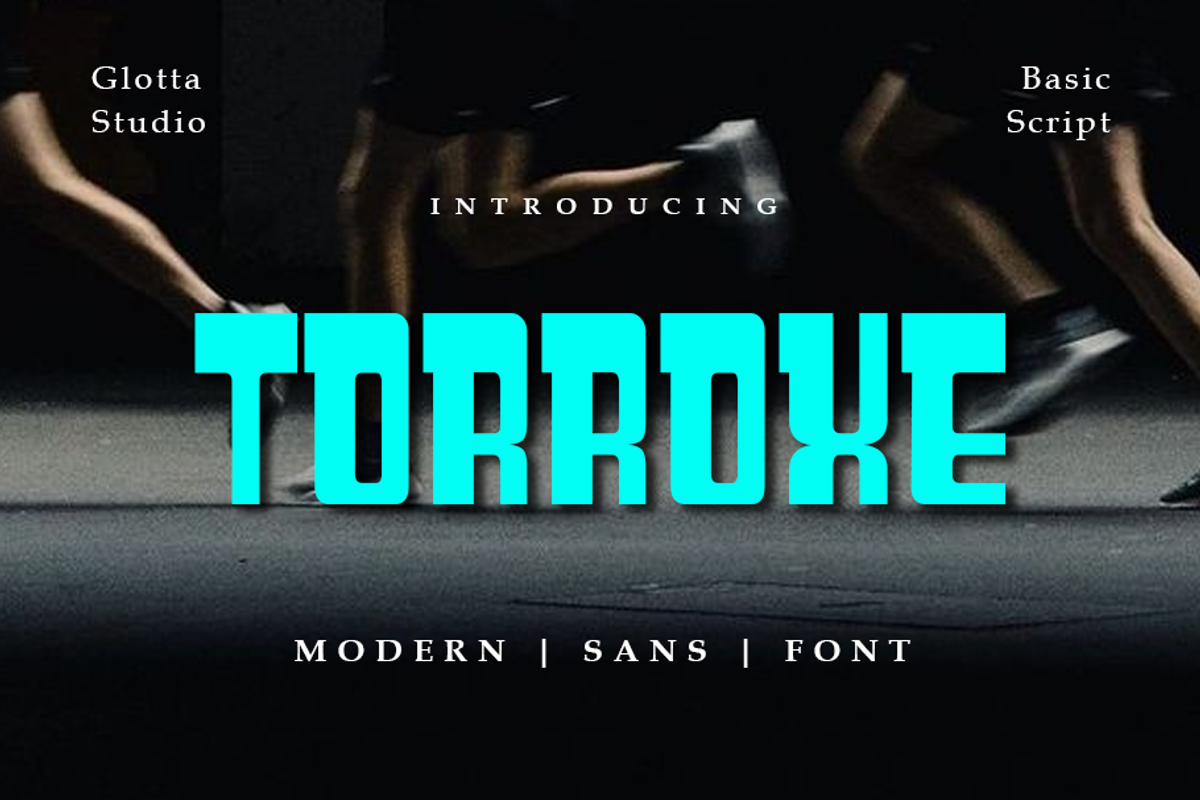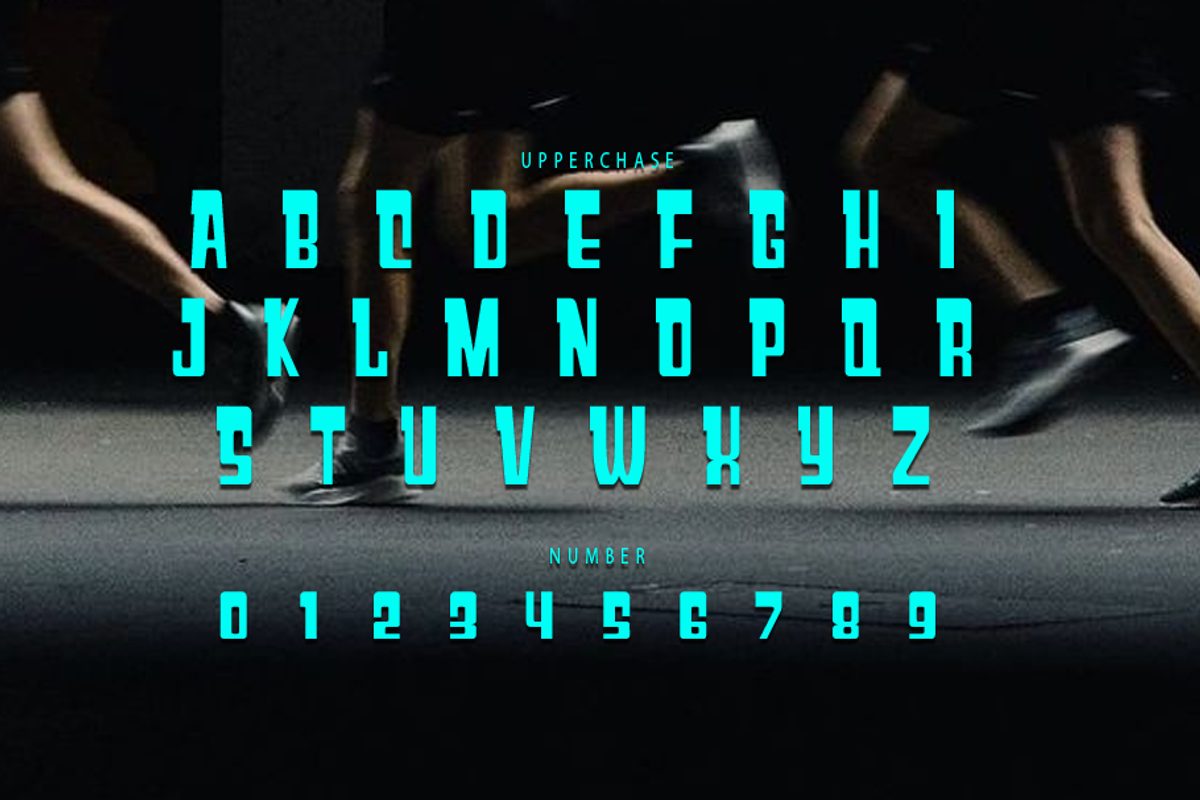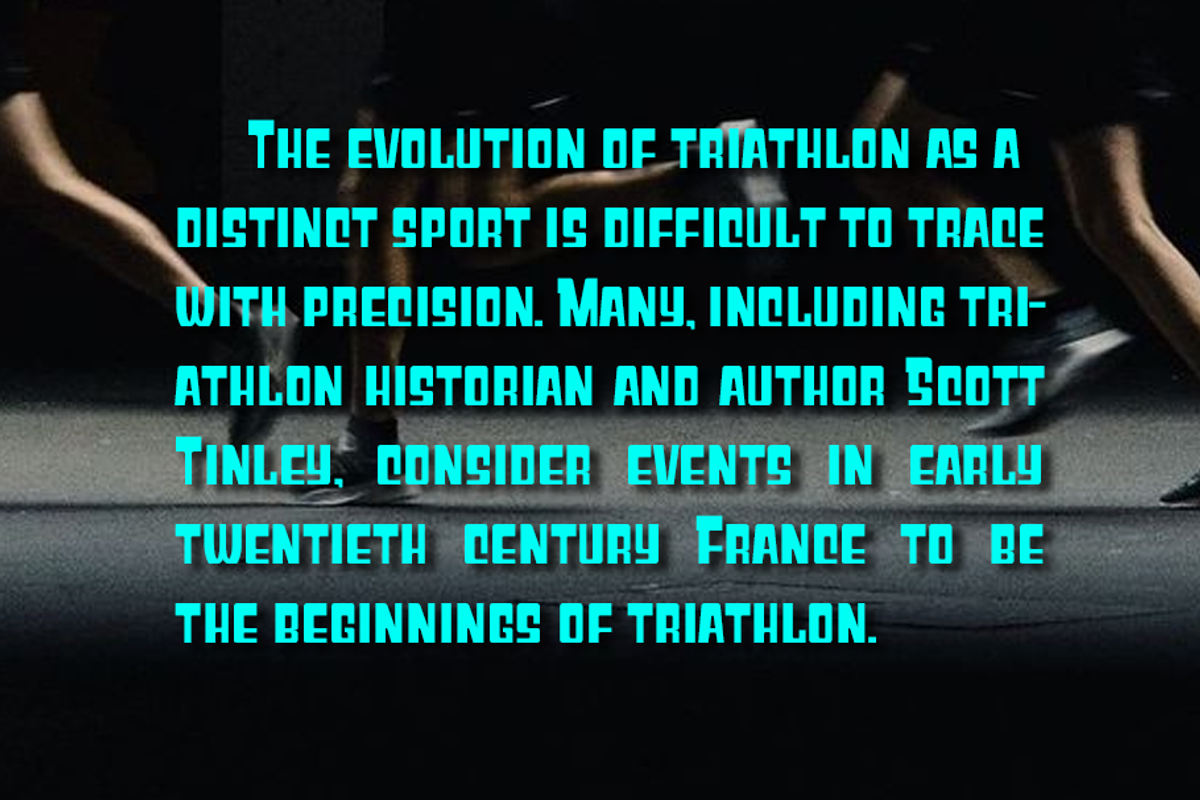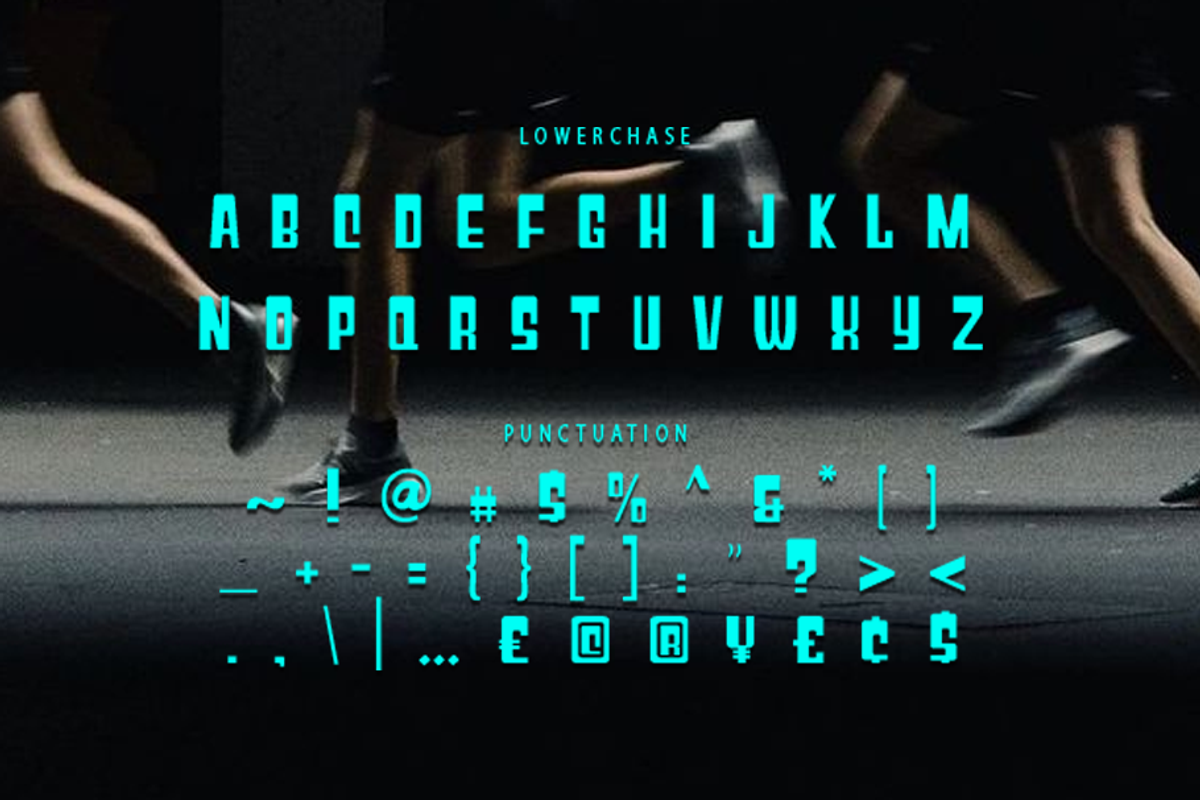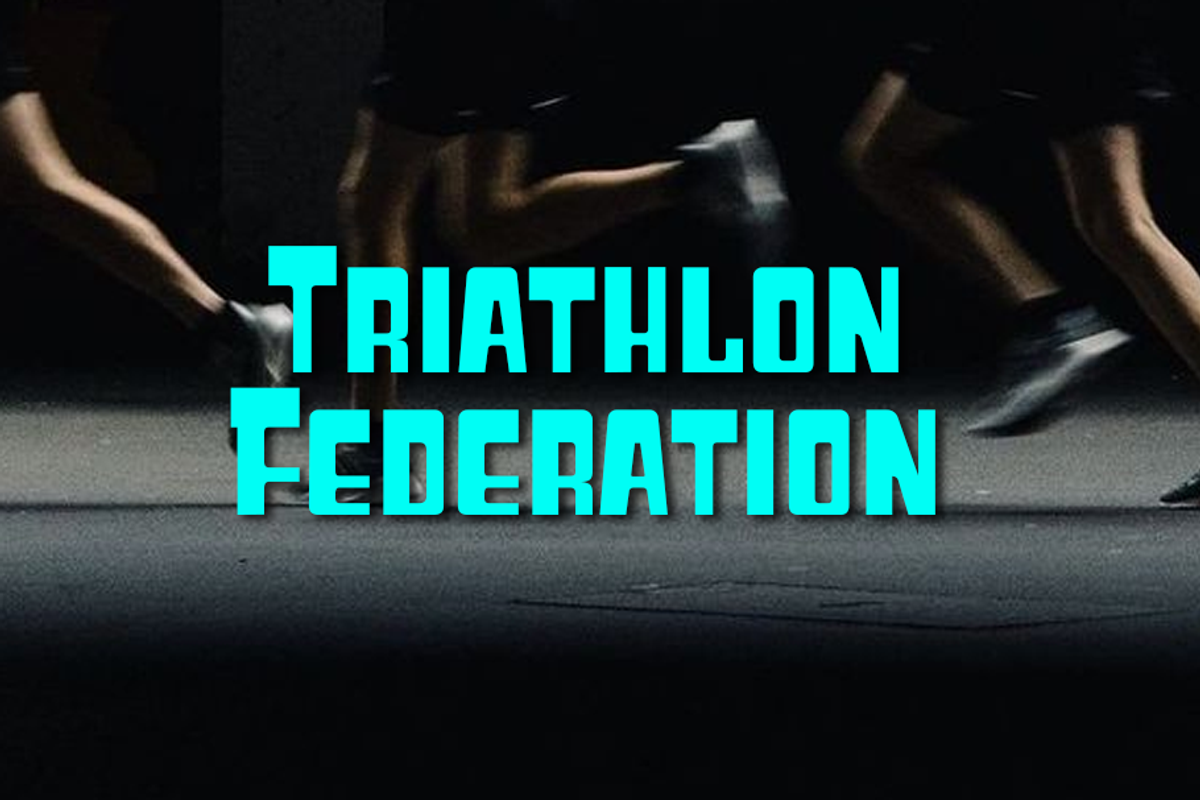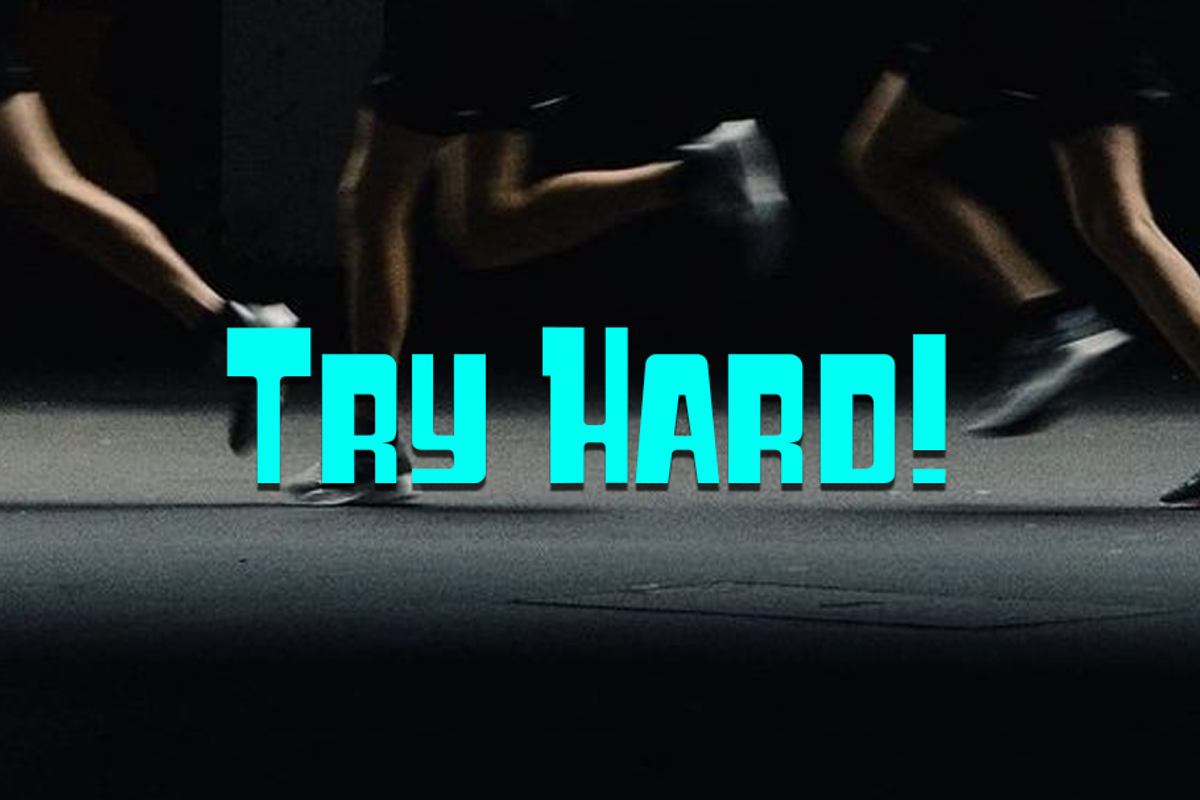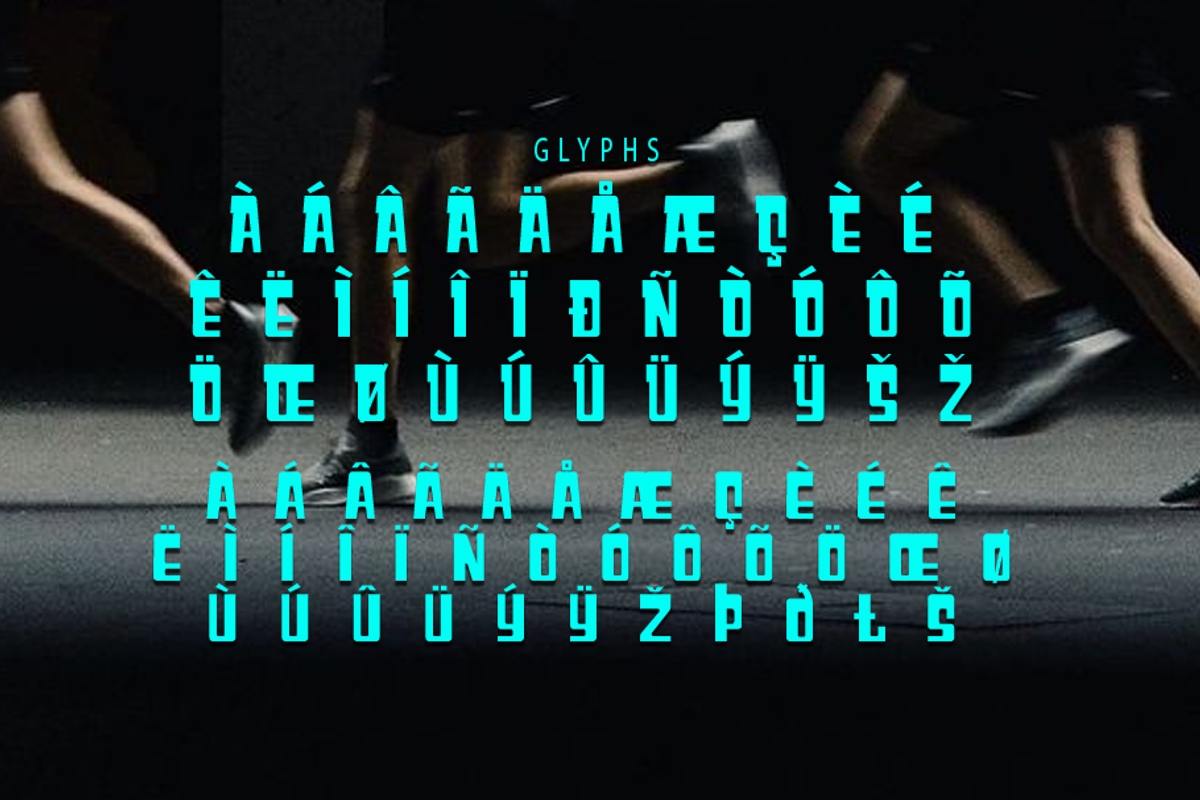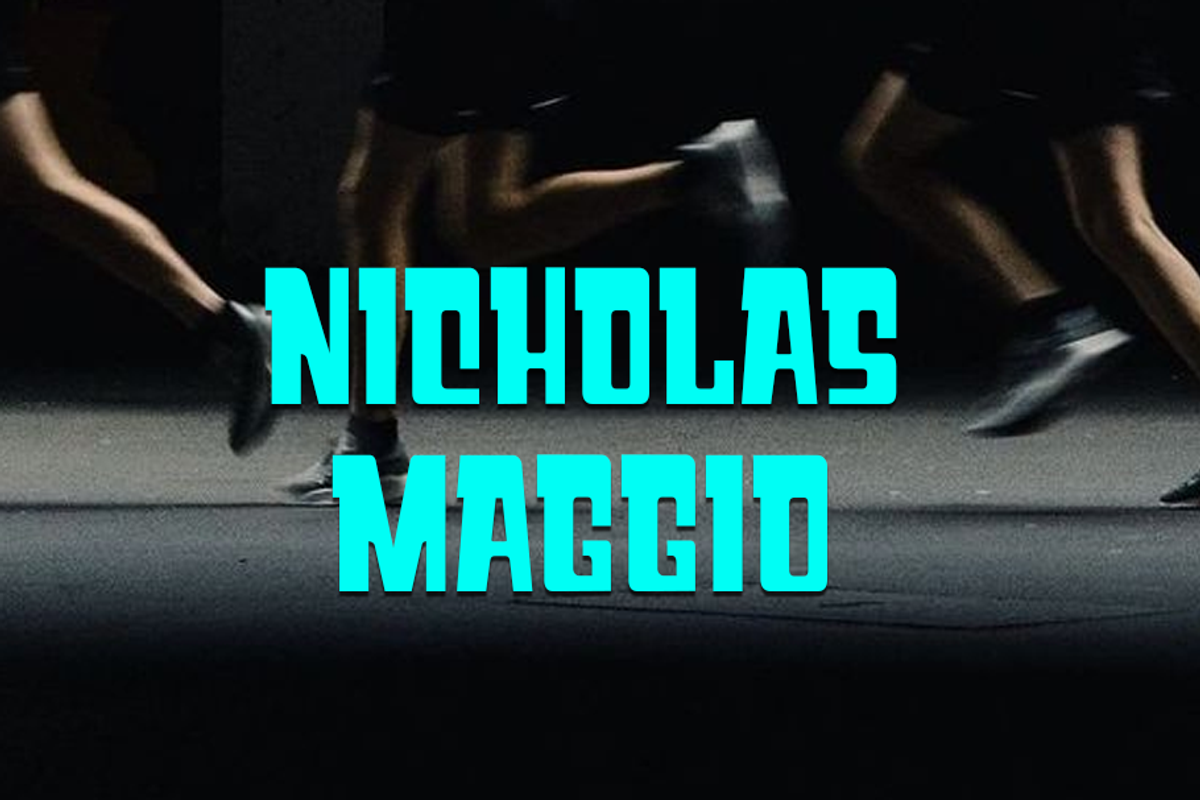
Torroxe
Torroxe is classic font it’s looks cowboy text, Americans, classy and easy to use. Torroxe is the great choice for watermark on movie industry, poster design, quotes, album cover, business card and many other design project. Torroxe** is here to make your work or your business to high level!!! Features
- Numerals and Functional
- Alternate and ligature